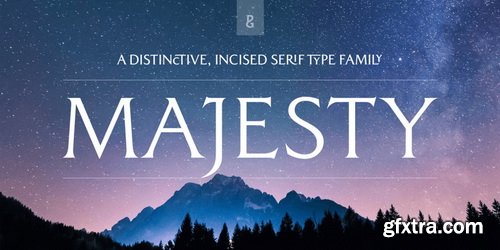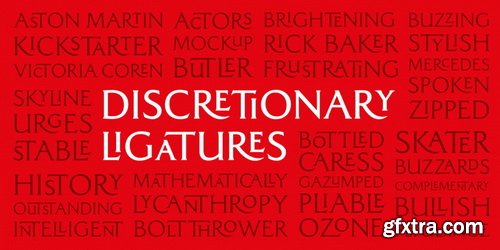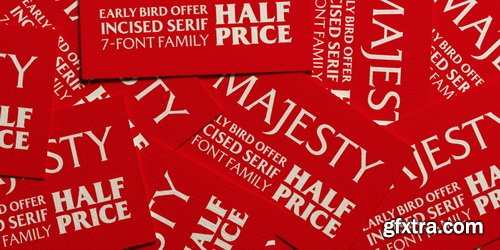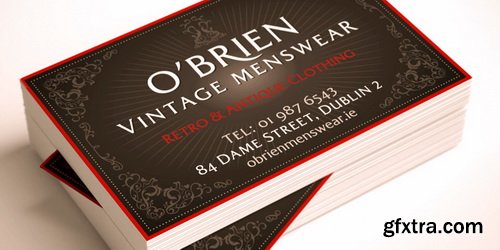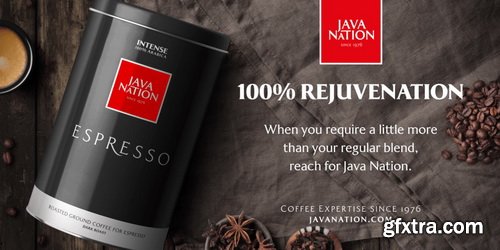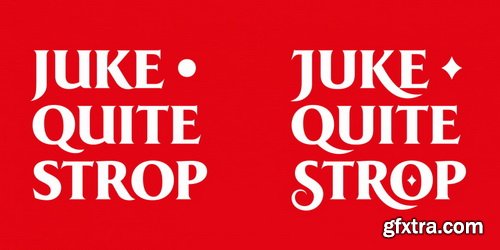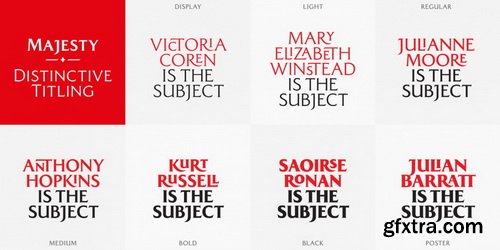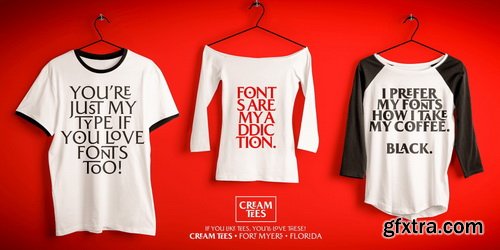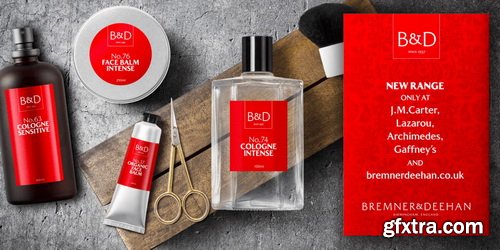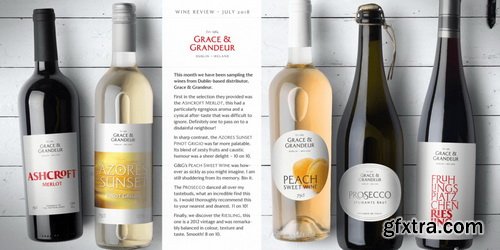
Majesty is a refined and elegant incised serif typeface designed to convey a sense of drama with any implementation of it. As pompous as that sounds, Majesty’s austerity is softened by the inherent familiarity of its letterforms. Having being inspired by classic engraved type, it has the echoes of familiar stone inscriptions over the centuries embodied within this 7-font type family.